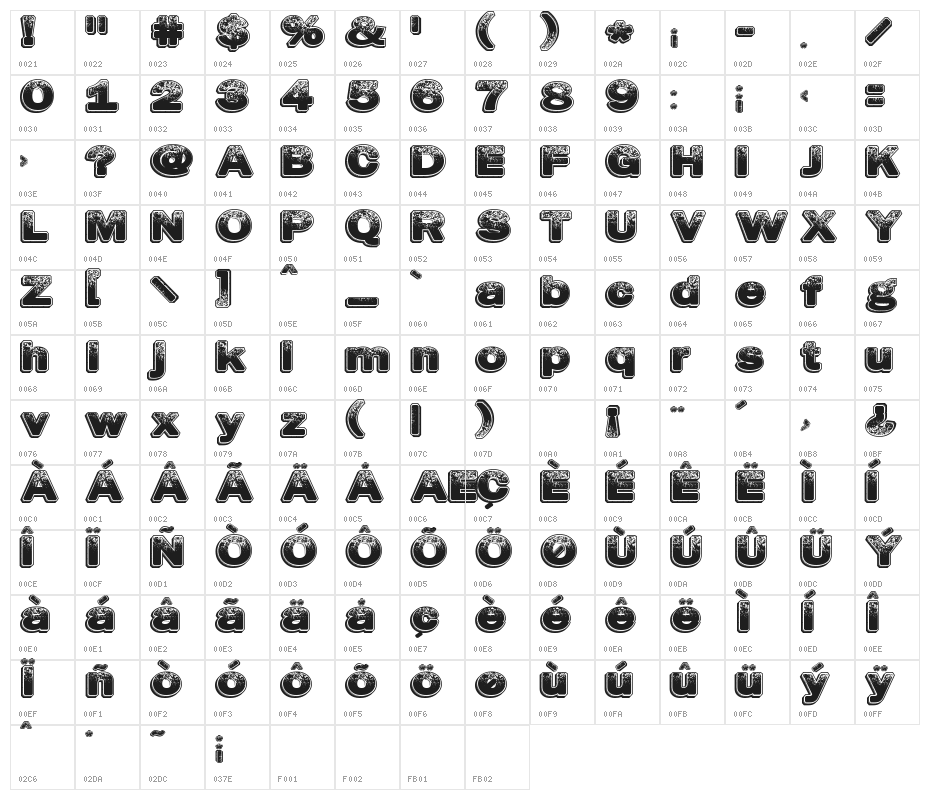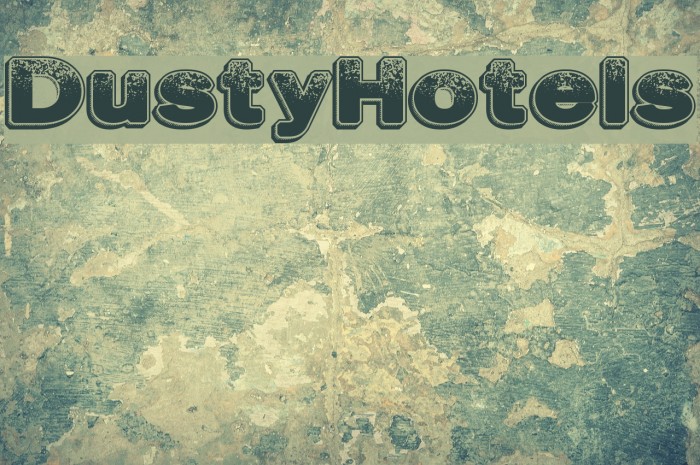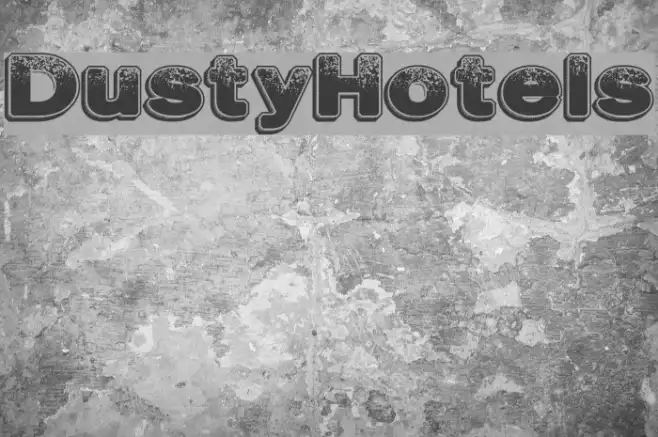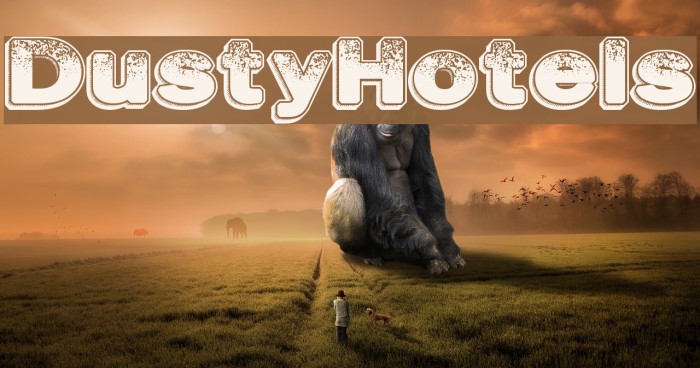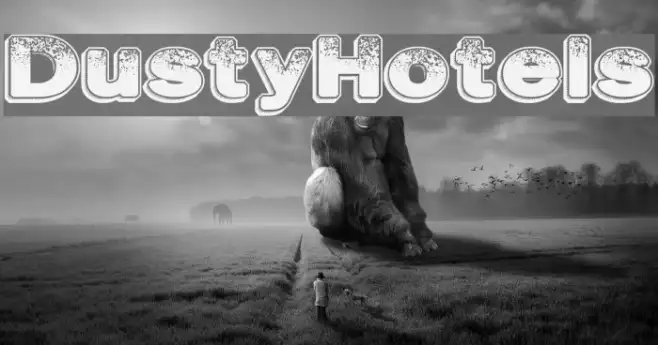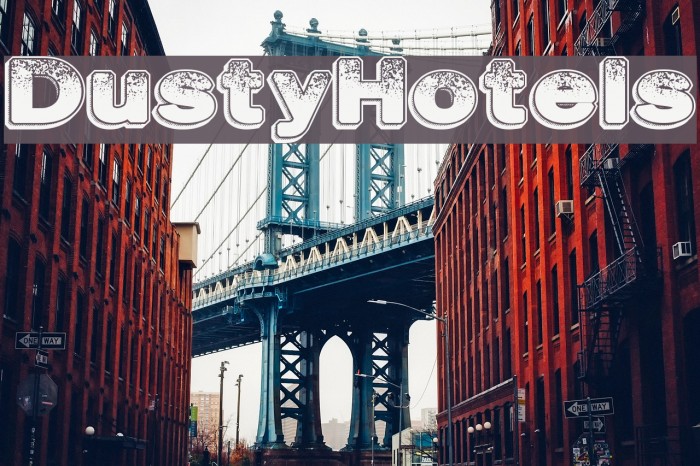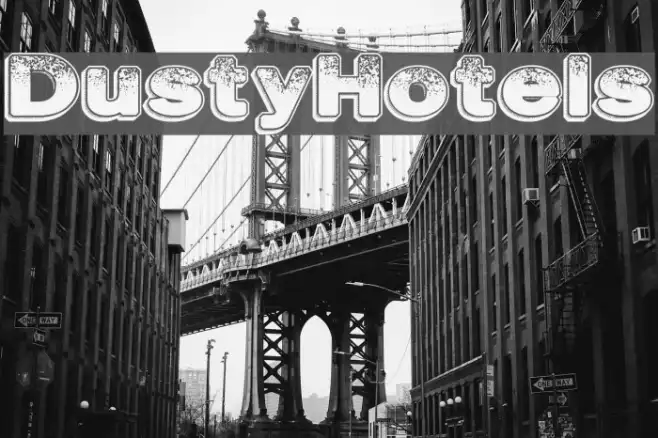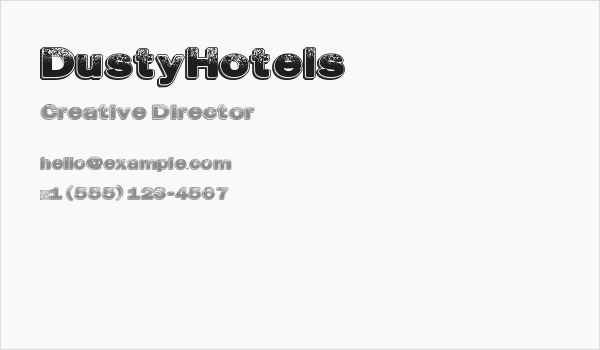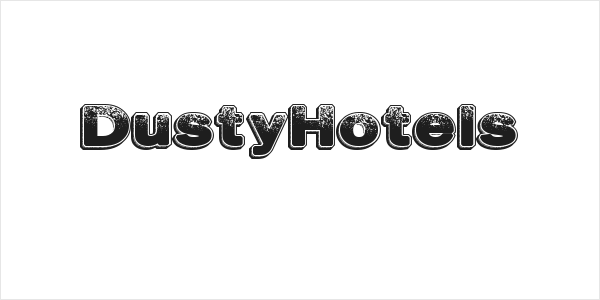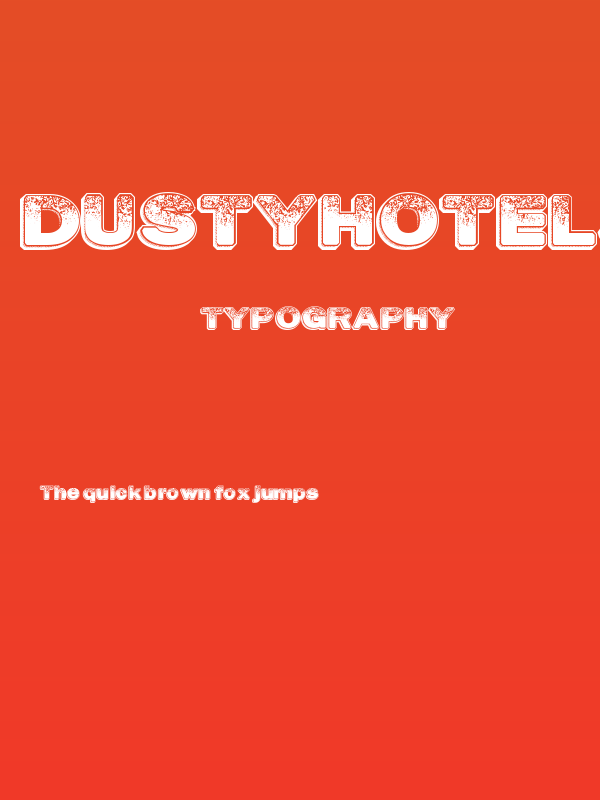
DustyHotels Font
DustyHotels Description
This font features a bold, distressed style with a textured overlay that gives it a worn, vintage appearance. The characters are thick and substantial, with a consistent width and a slightly rounded edge that softens the overall look. The distressed effect is prominent, creating a sense of age and character, making it ideal for designs that require a retro or grunge aesthetic. The uppercase and lowercase letters maintain a uniform style, while the numerals and special characters complement the alphabet with the same rugged texture.
| Proposed Projects | Ideal for vintage-themed posters, album covers, branding for retro products, and any design needing a grunge or aged look. |